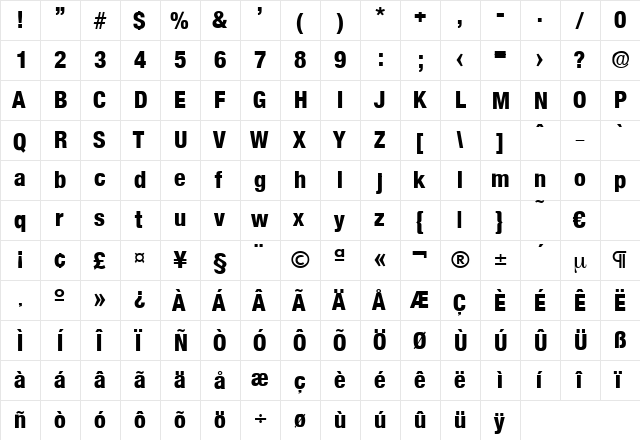
Olnova-ExtraBoldCond Regular Font Preview
Design Context for Olnova-ExtraBoldCond Typeface
Olnova-ExtraBoldCond offers clean, dependable letterforms without strong stylistic allegiance, making it a practical choice for designers who need flexibility. The heavy weight commands attention and anchors typographic hierarchies. Its narrow stance lets it pack a punch even in space-constrained designs.